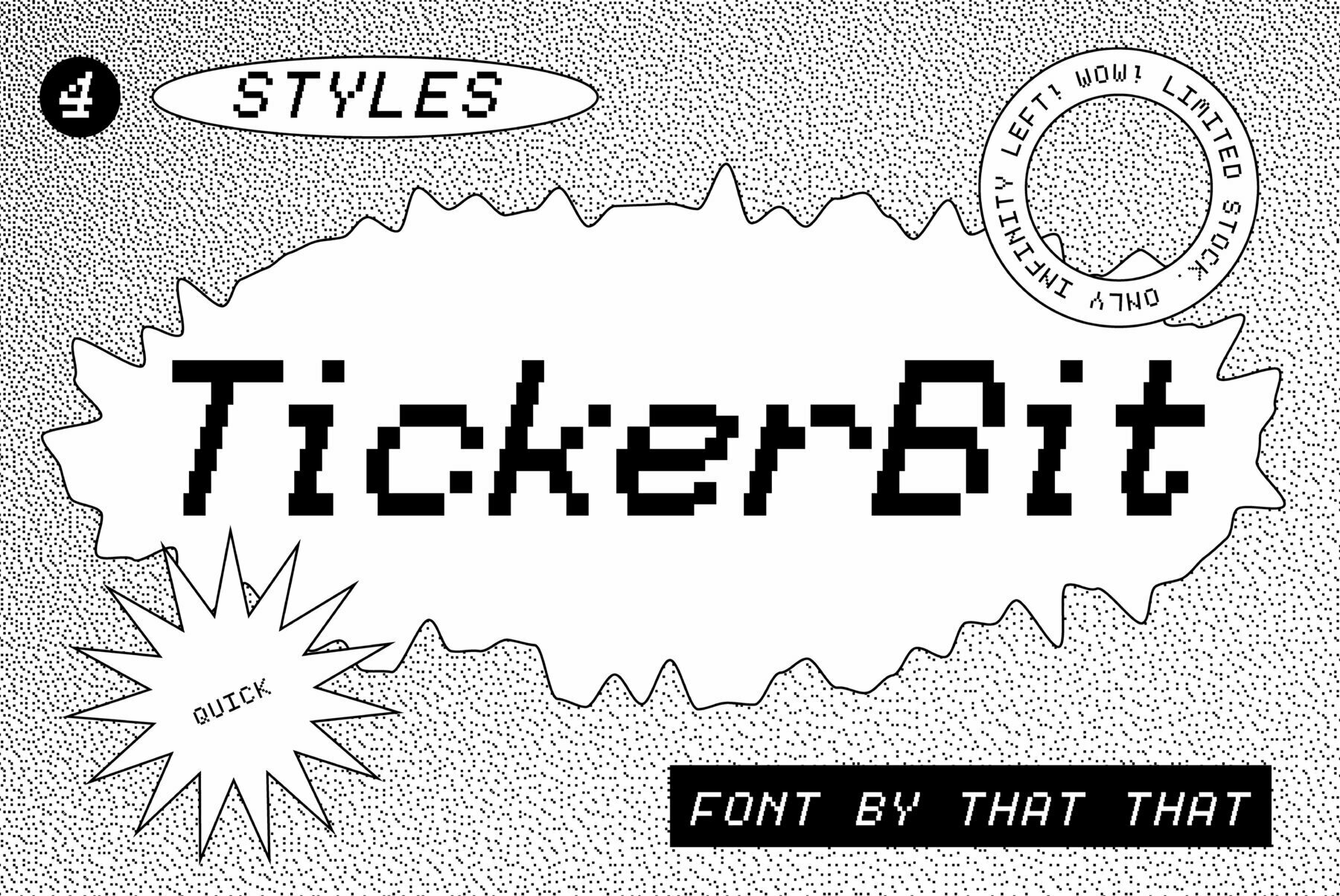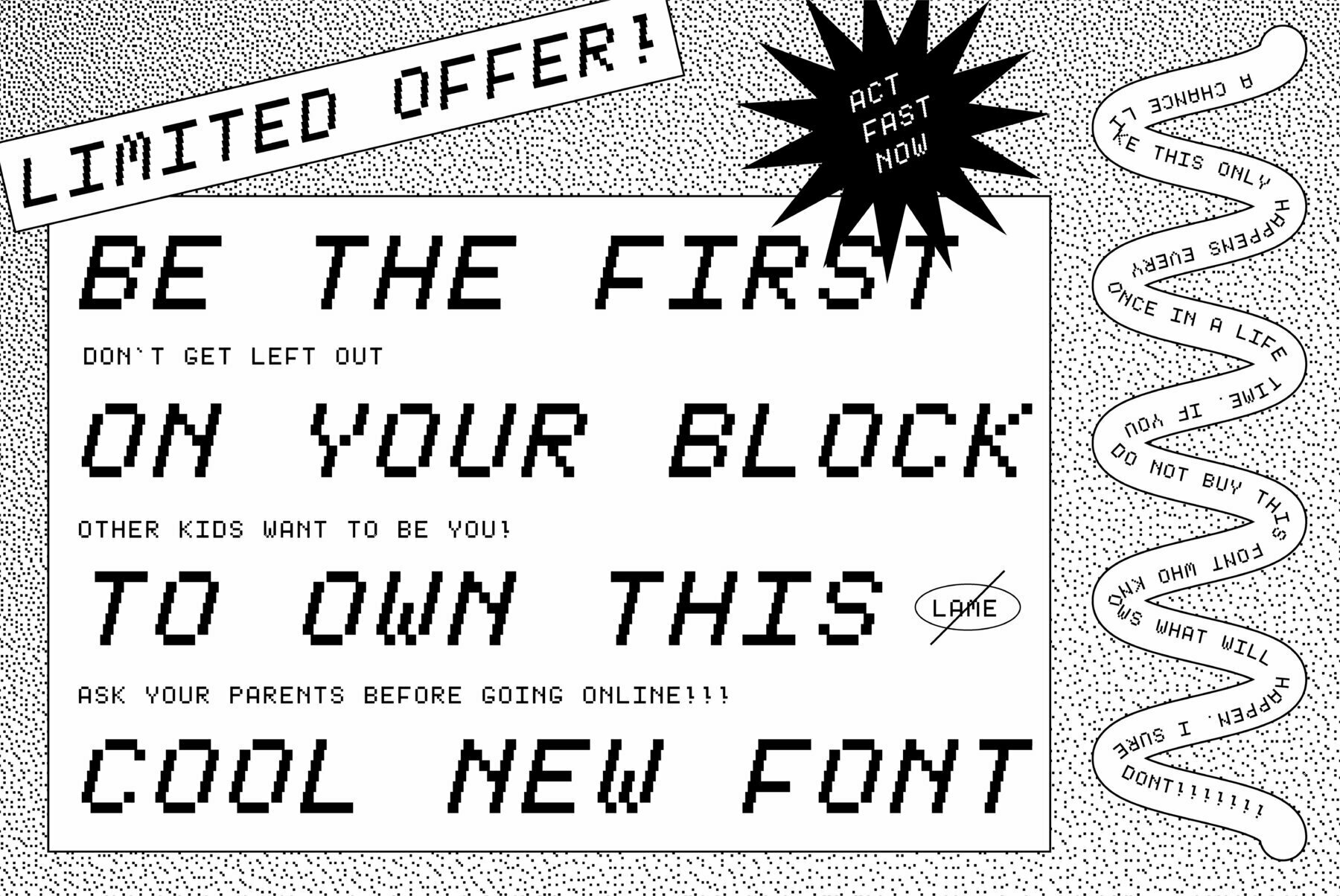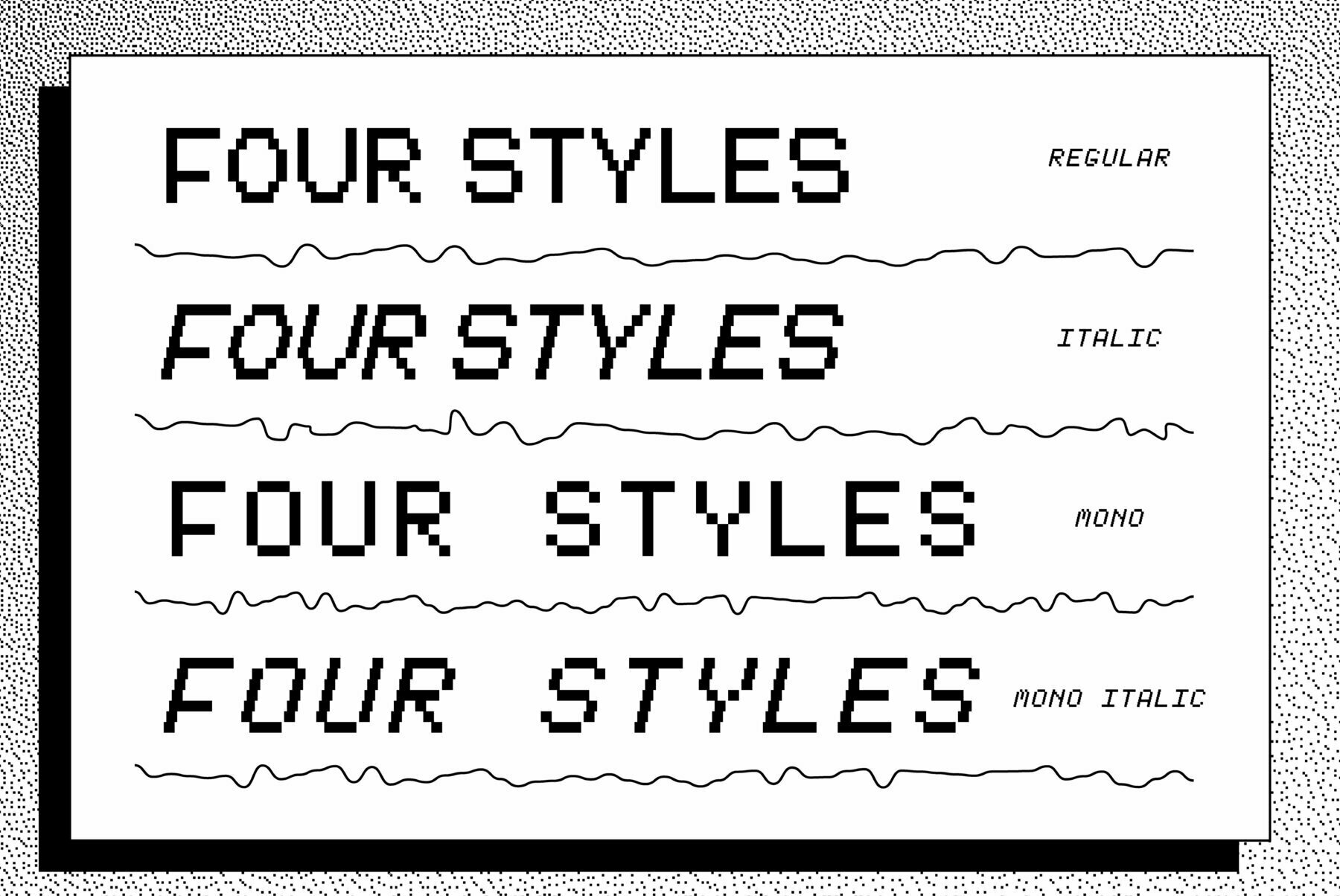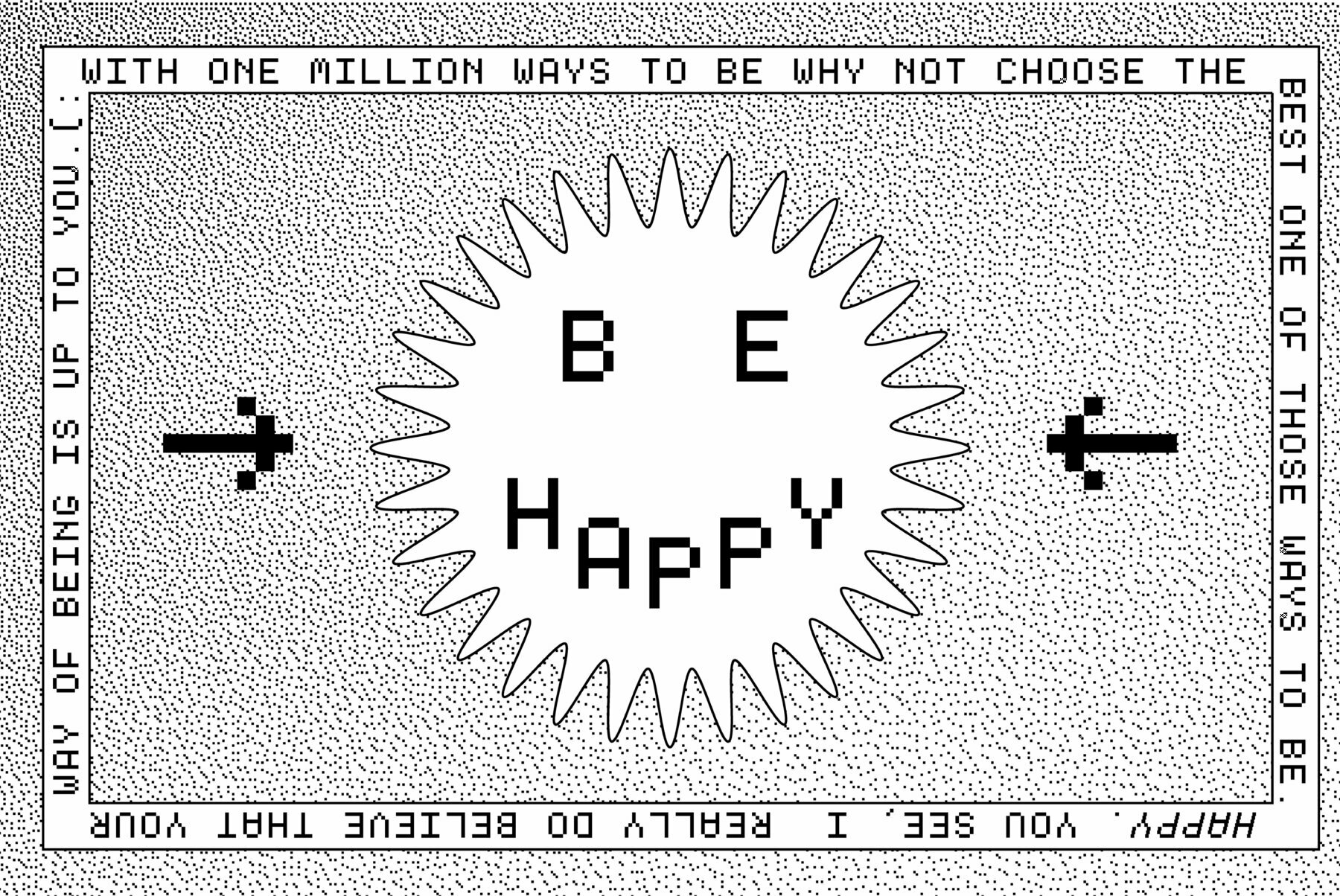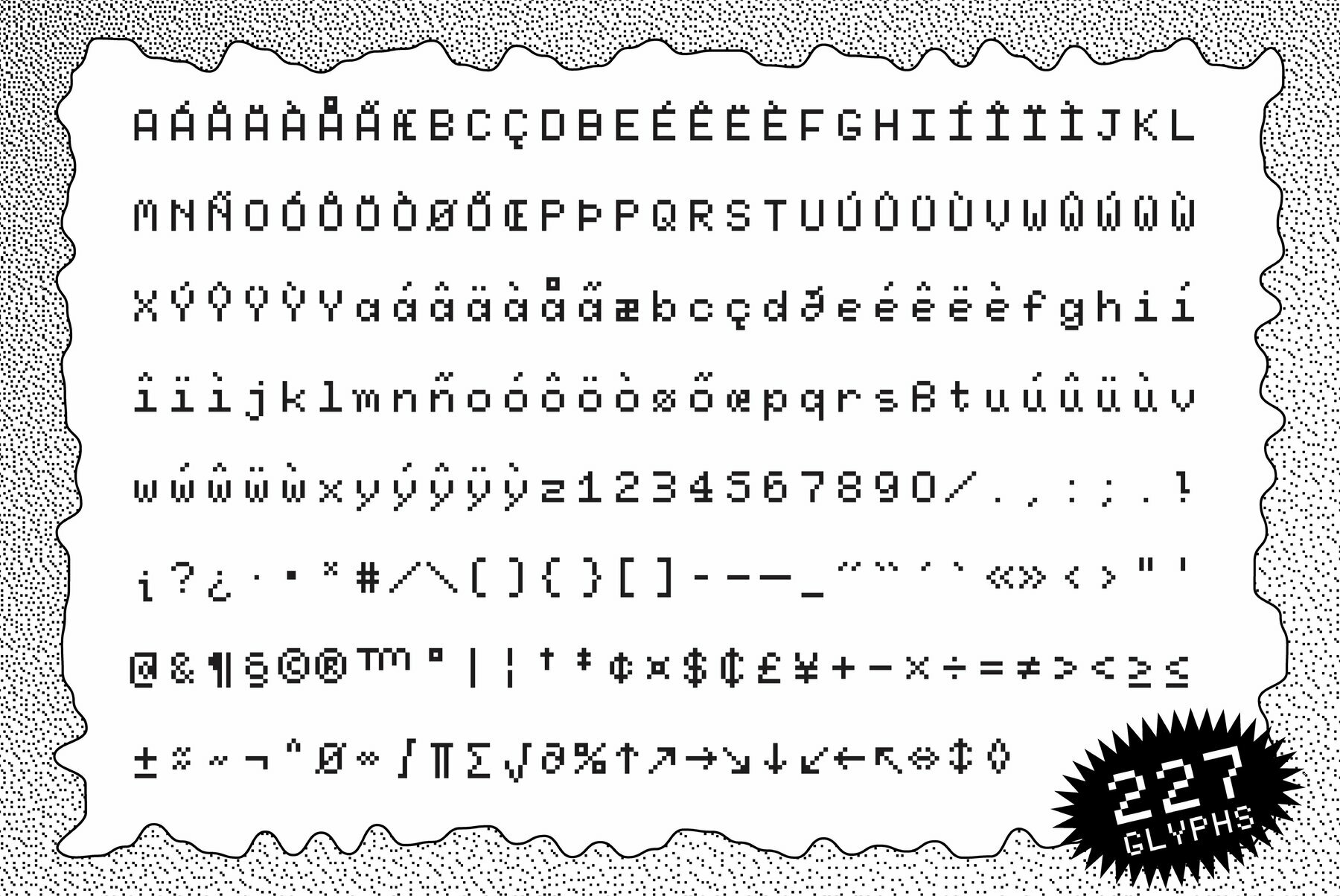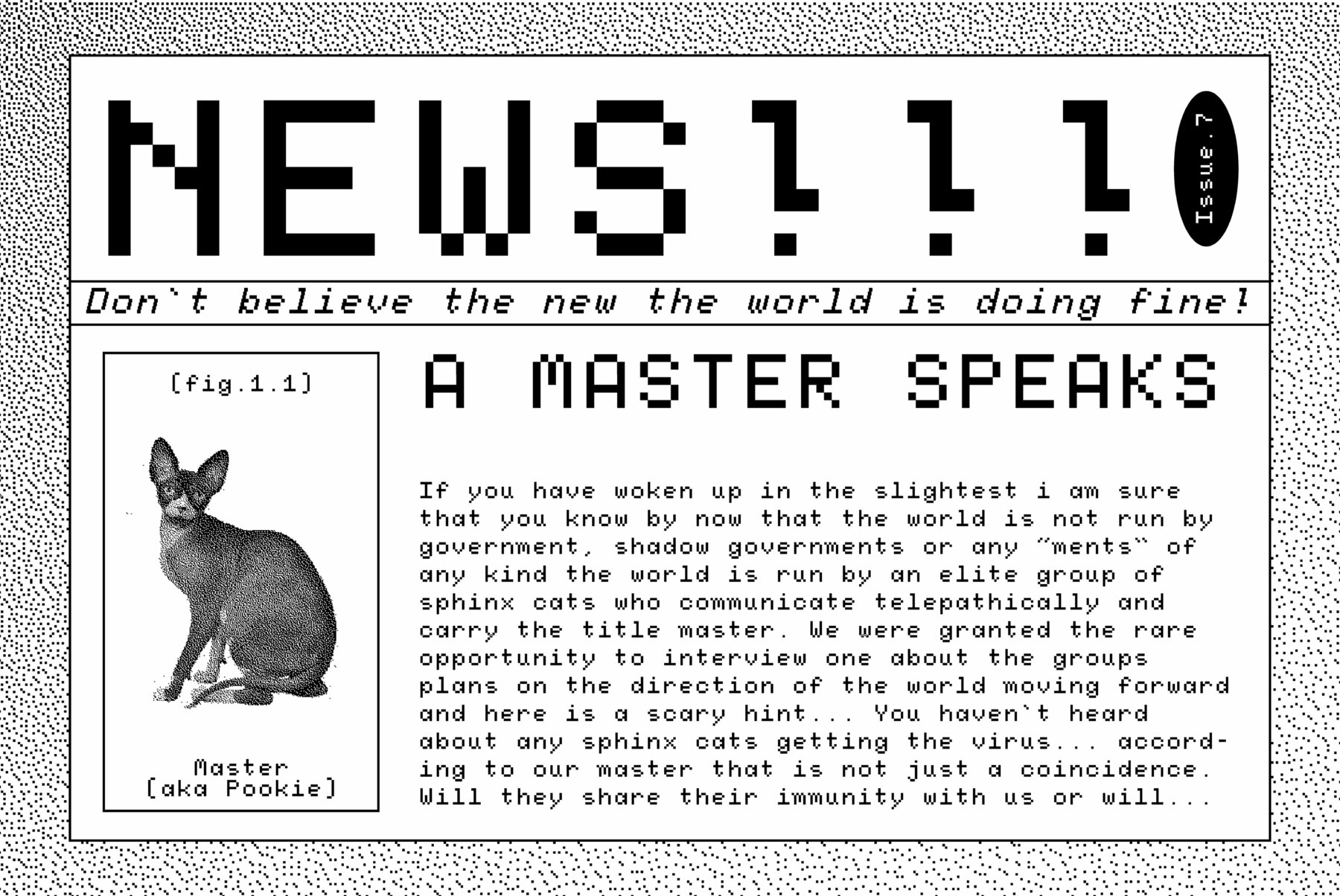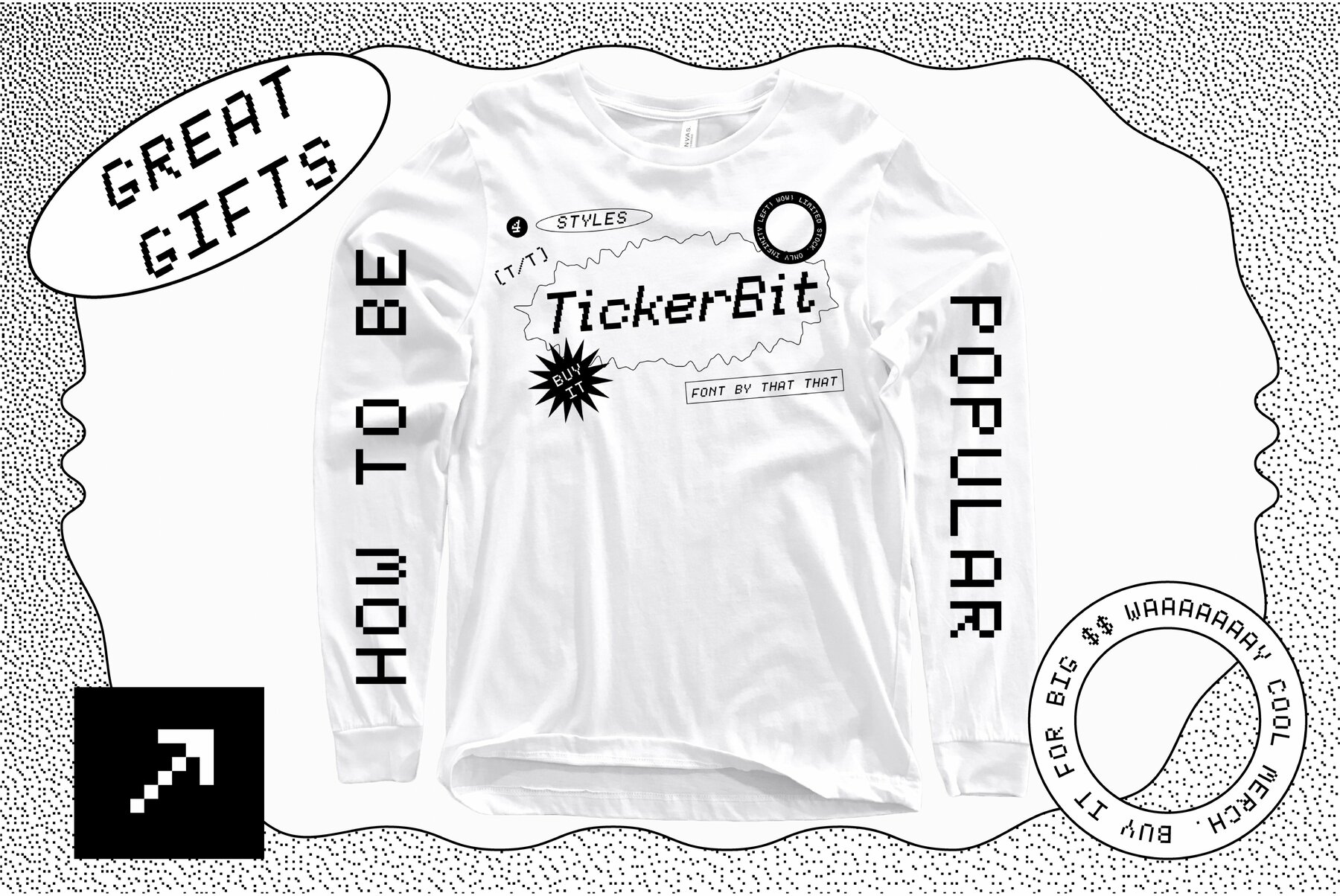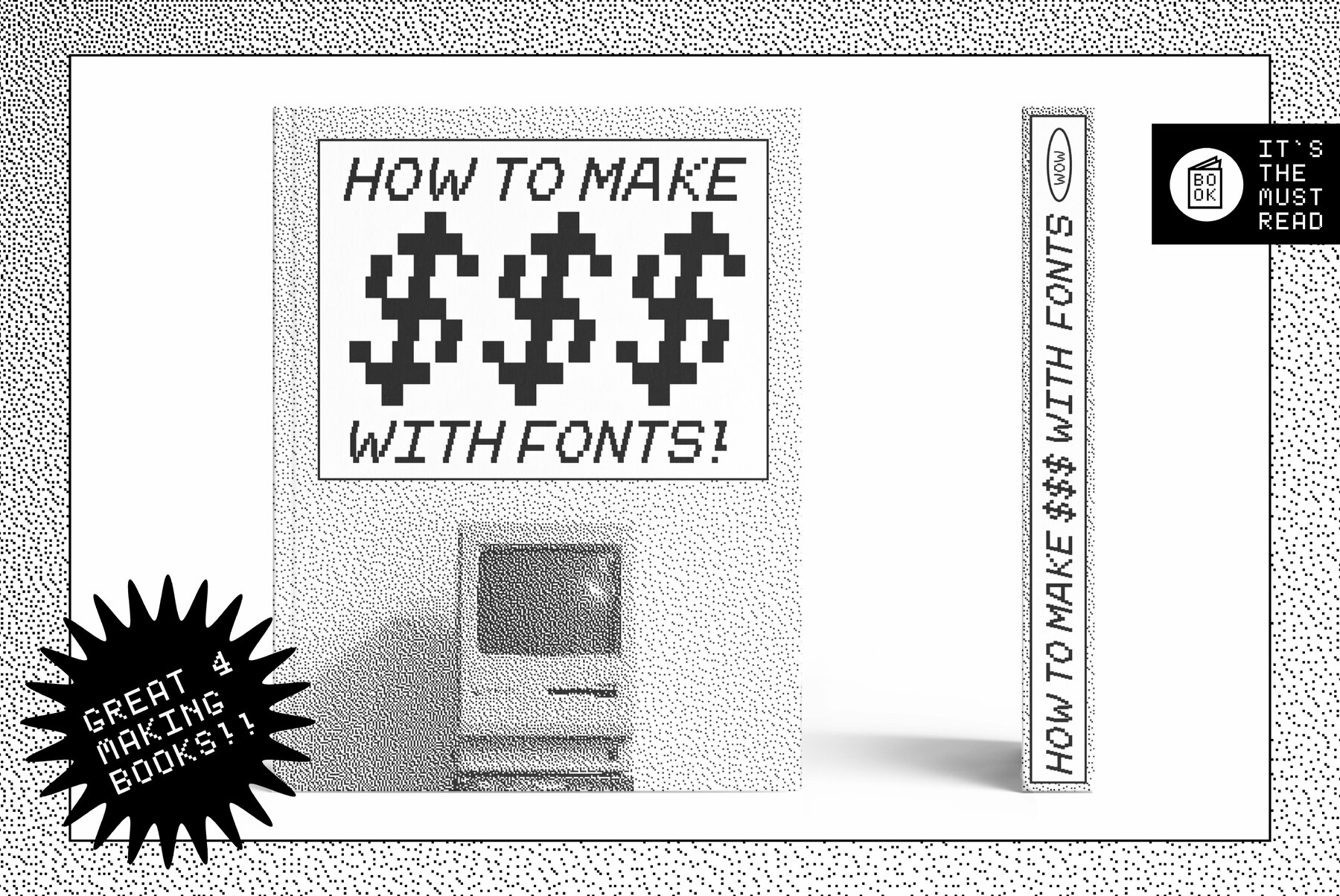
Tickerbit Font
Tickerbit Regular
Tickerbit Italic
Tickerbit Mono
Tickerpixel Mono Italic
Ticikerbit pixel font is a modern pixel font that comes in 4 styles. This font is great for retro or contemporary displays. It works for headlines or body copy. Multilingual support. great for logos, editorial, clothing, and package design all with a vintage feel. This playful font works in large and small sizes. and includes monospaced, italic, and mono italic styles.
- 4 Styles
- Over 220 Characters
- Regular and Monospaced
- Lowercase and Uppercase
- Numerals & Punctuation
- Accented Characters
- Multiple Languages Supported